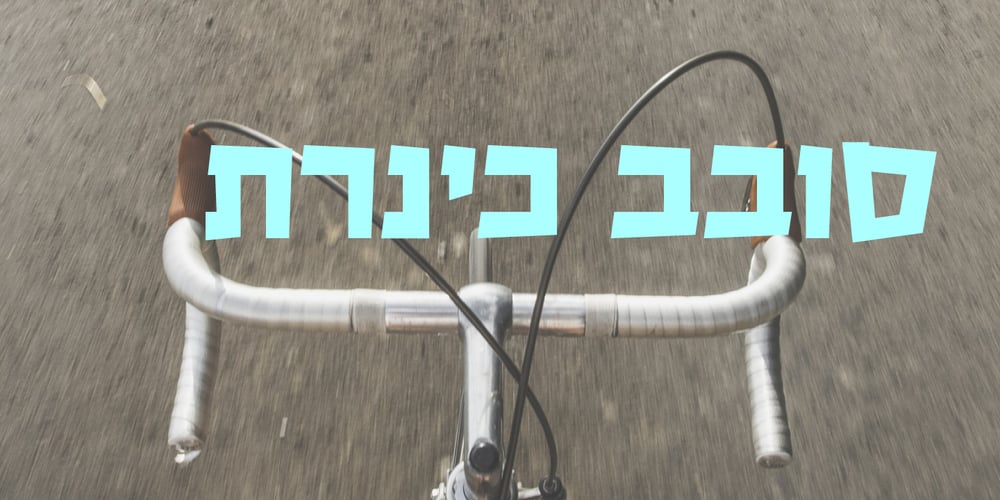
Shikuch Maleh
Shikuch Maleh font
Shikuch Maleh Font Family was designed by Zvika Rosenberg and published by Masterfont. Shikuch Maleh contains 1 styles and family package options. Perfect for headlines as well as simple text, with its elegance vintage look.